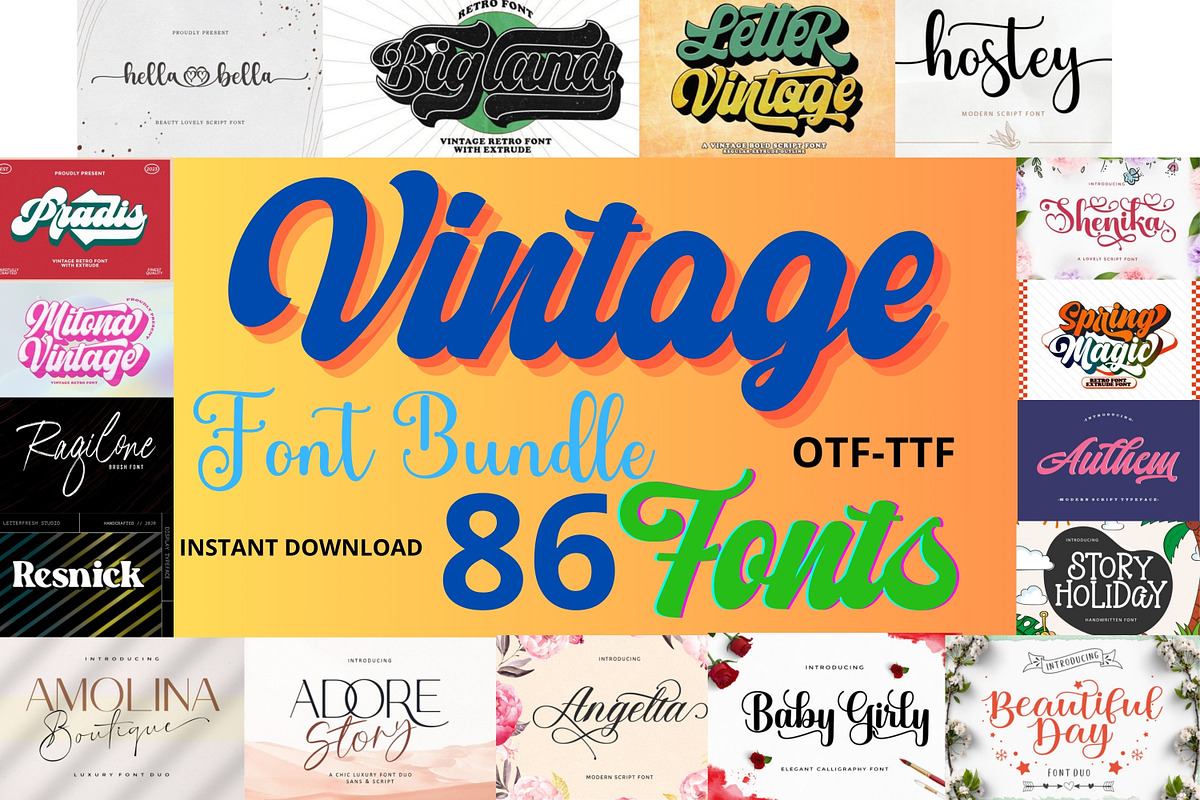
Bundle 86 Fonts - Vintage Font Free Download
Bundle 86 Fonts - Vintage Font Free Download is a comprehensive collection of 86 vintage-inspired fonts, offering a wide range of styles from classic serifs to elegant scripts and distressed display fonts. This bundle is perfect for anyone working on retro, nostalgic, or old-school themed designs. Whether you're designing logos, posters, branding, social media graphics, or invitations, these fonts give you endless creative possibilities.
With a mix of bold, refined, and decorative styles, you’ll have the perfect typefaces for every project that needs a timeless, vintage feel. The variety within this collection ensures you can match your design with just the right style for both formal and casual uses.